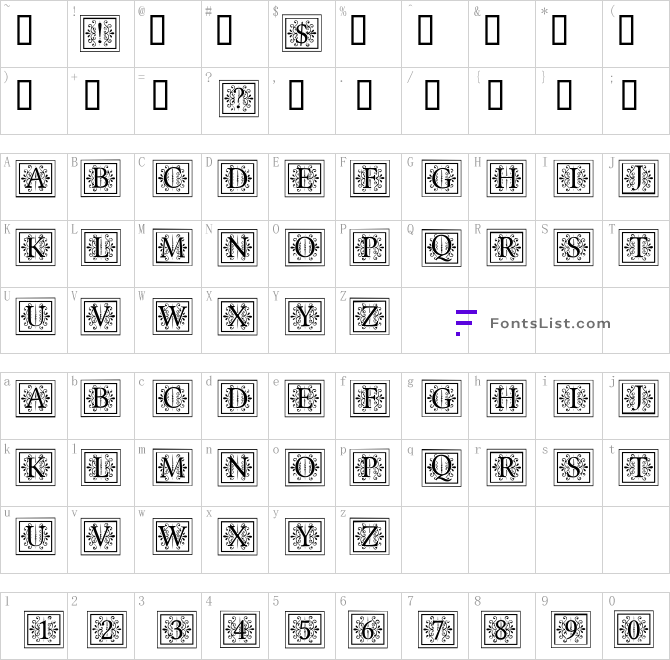
- Font Name:Apex Lake
ApexLake-Regular.otf is a very beautiful artistic font, ApexLake-Regular.otf is widely used in the design and printing of various books and pictures,ApexLake-Regular.otf has a strong visual impact,ApexLake-Regular.otf is a commonly used font in newspapers, magazines and books, and is used in posters, e-commerce Poster design, store design, logo design, font design and other fields.ApexLake-Regular.